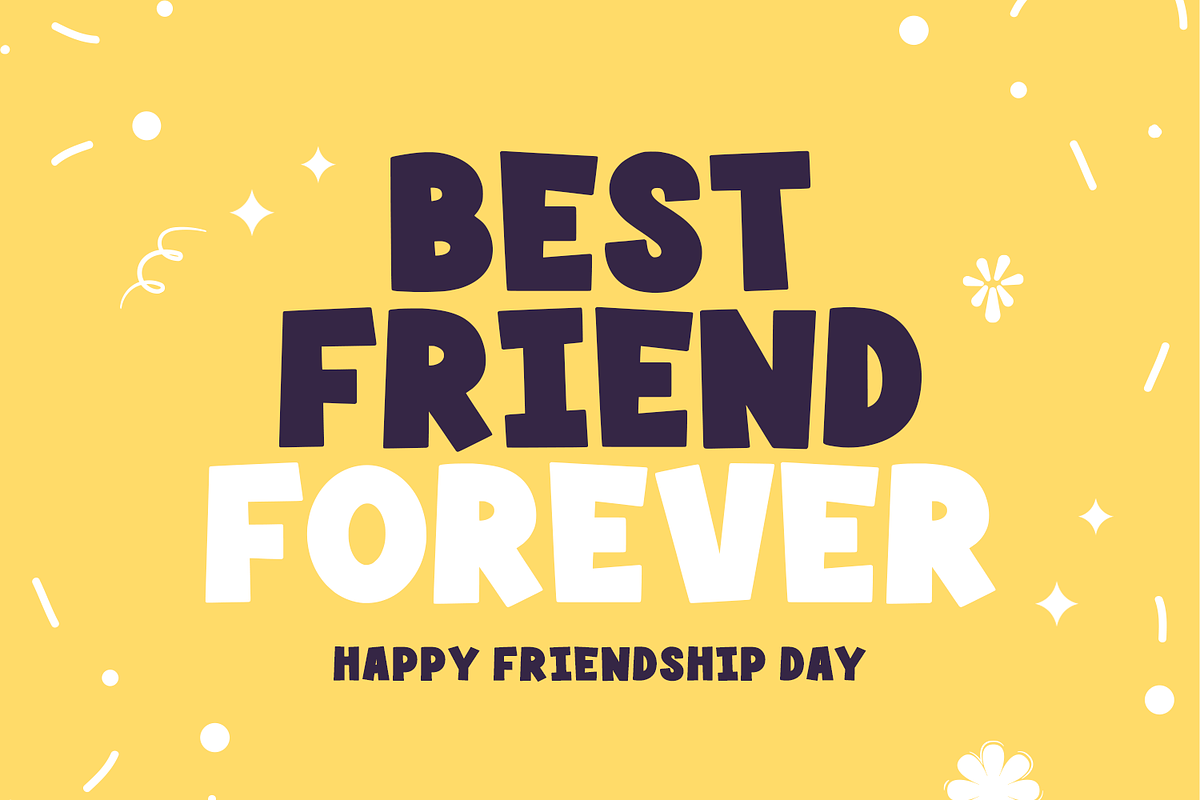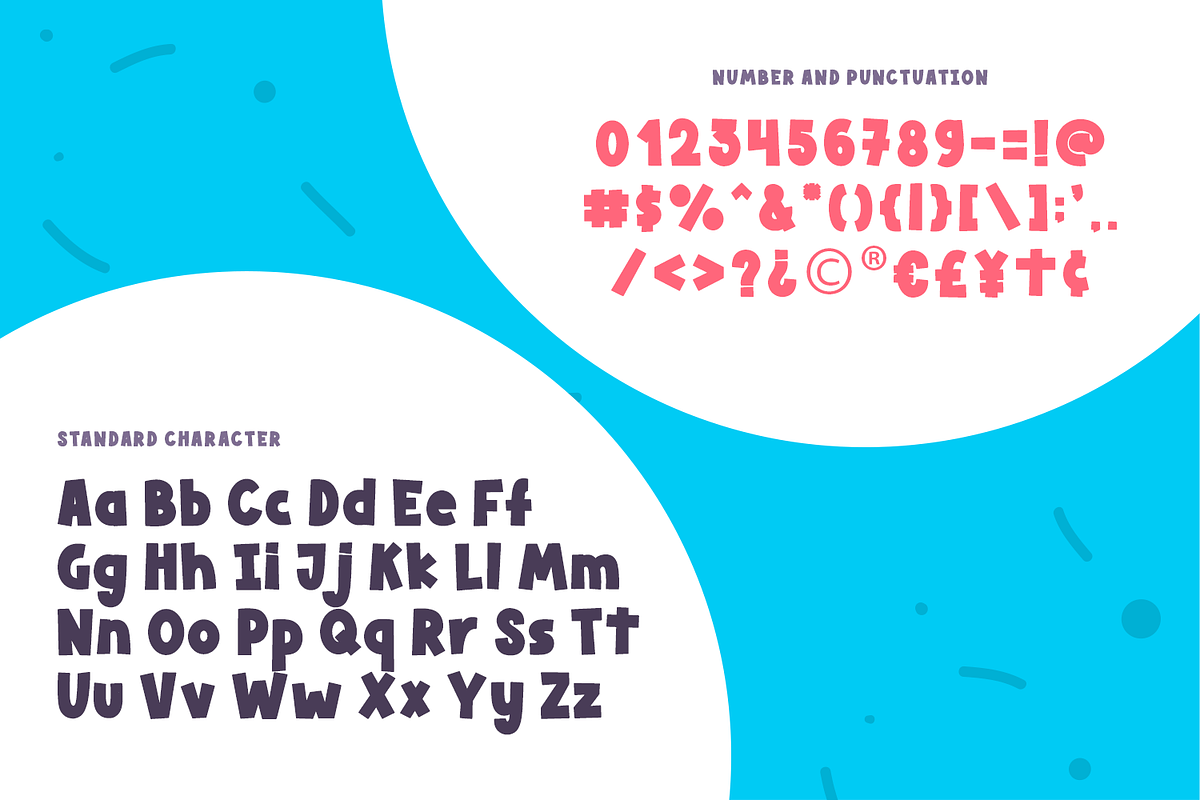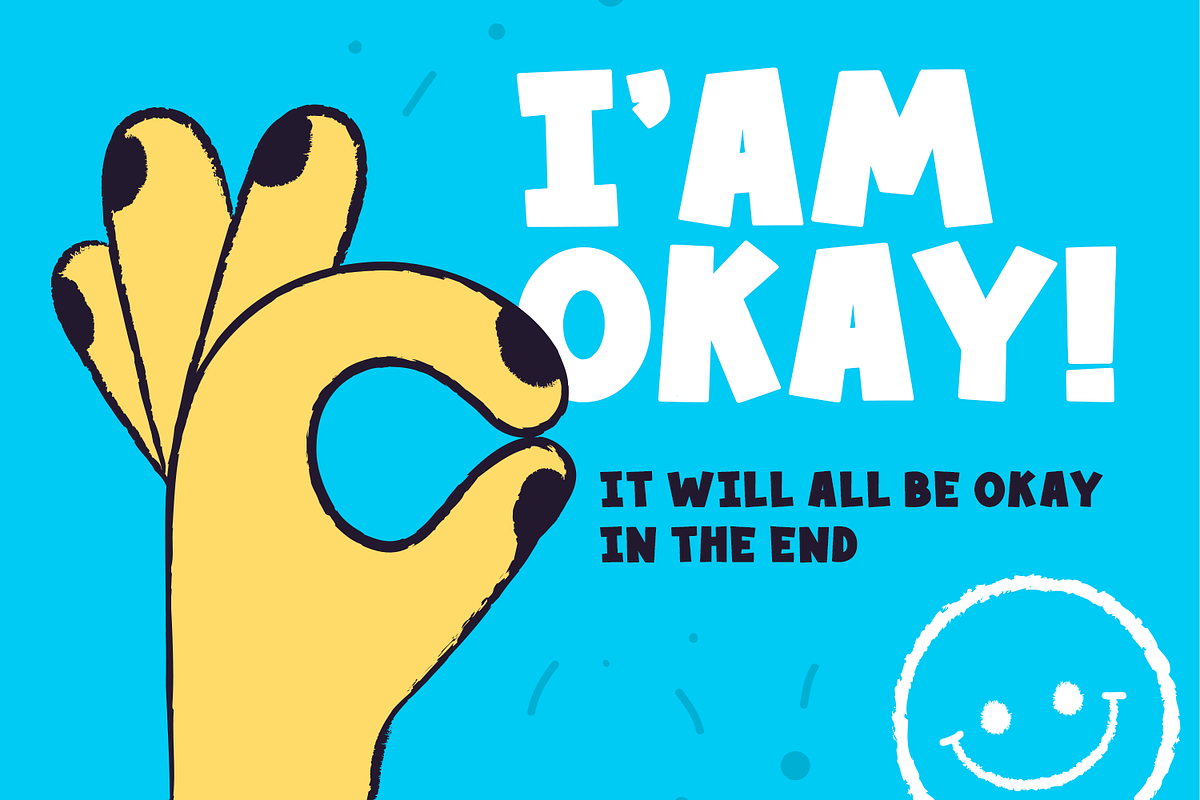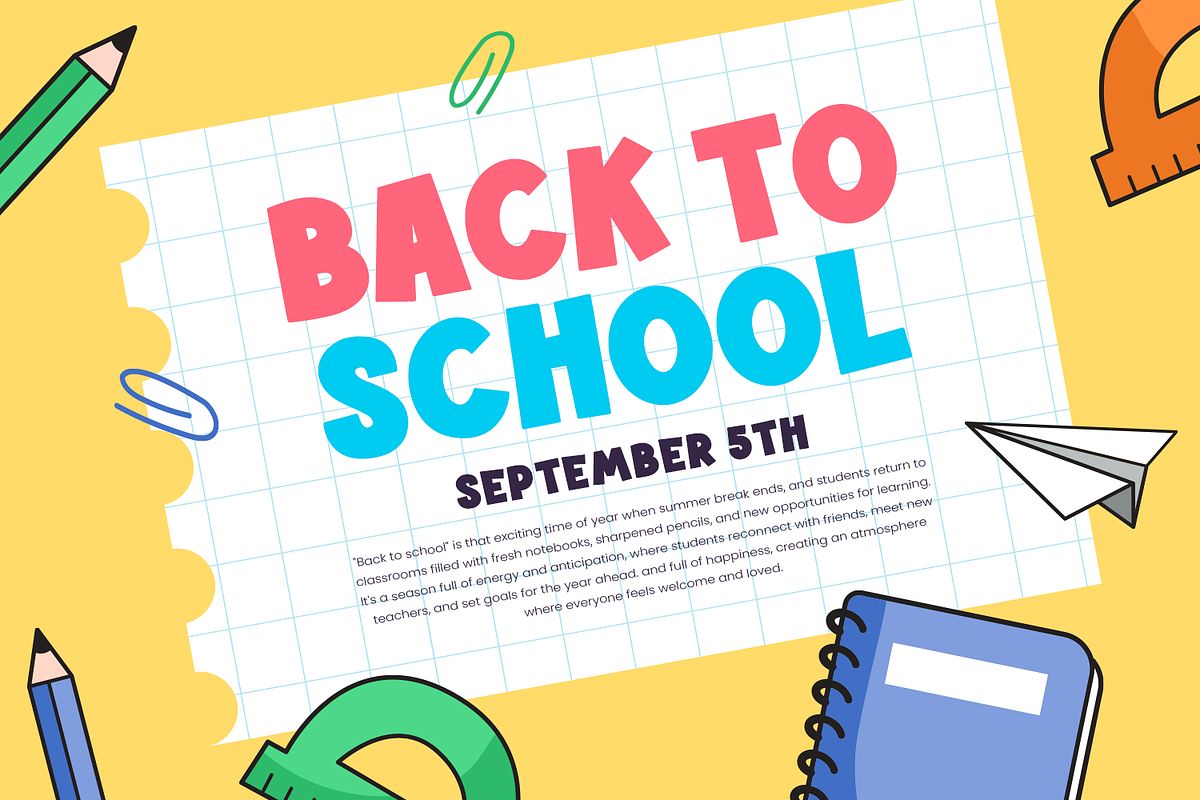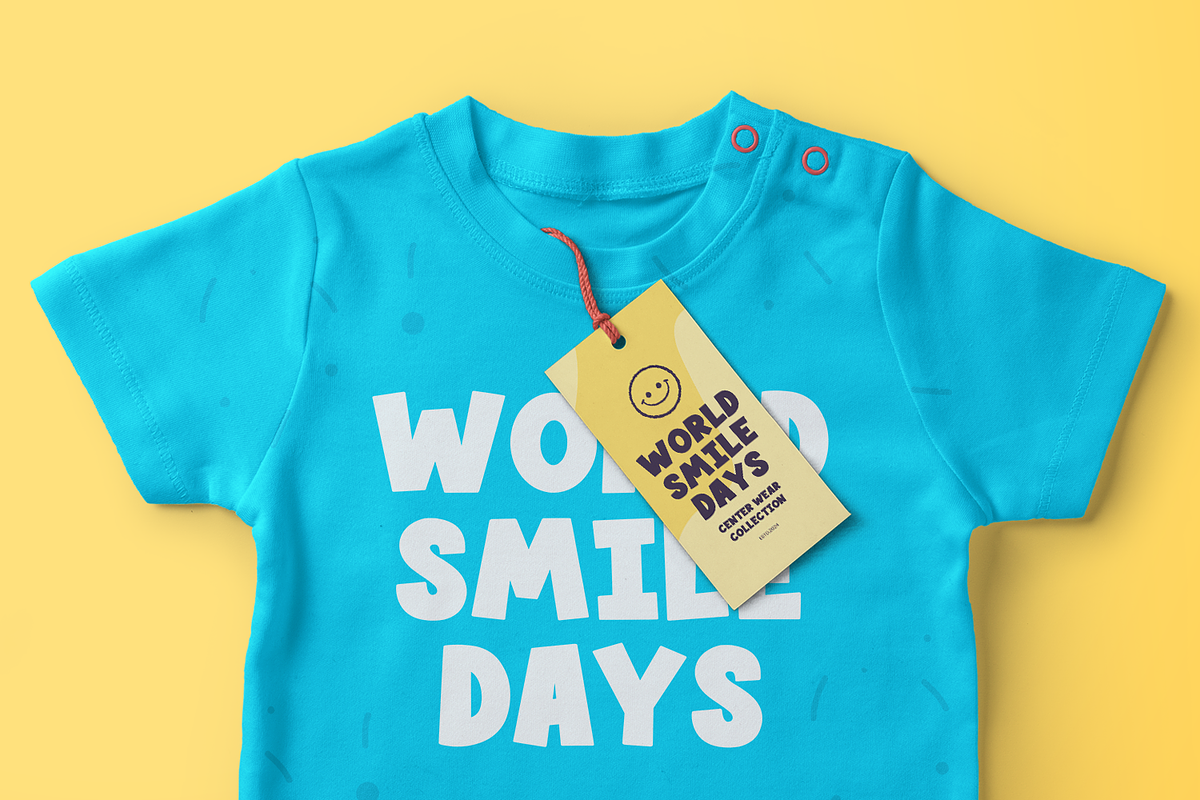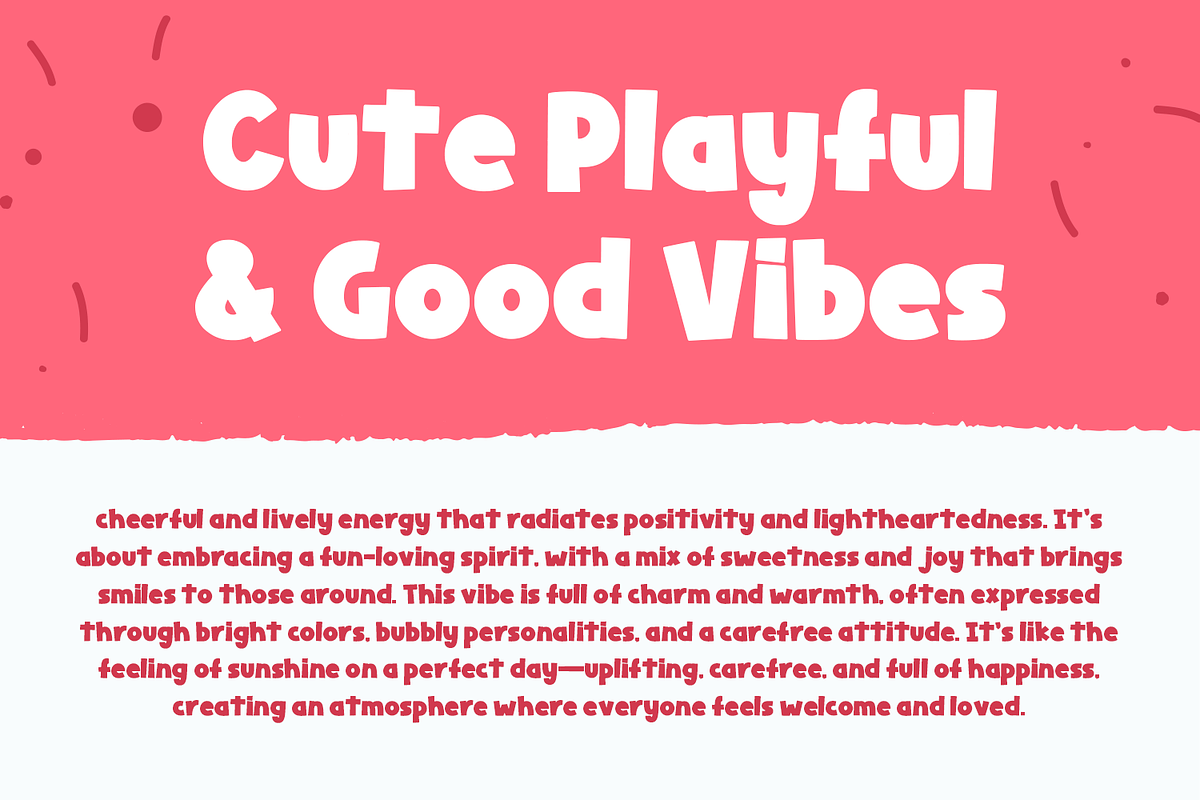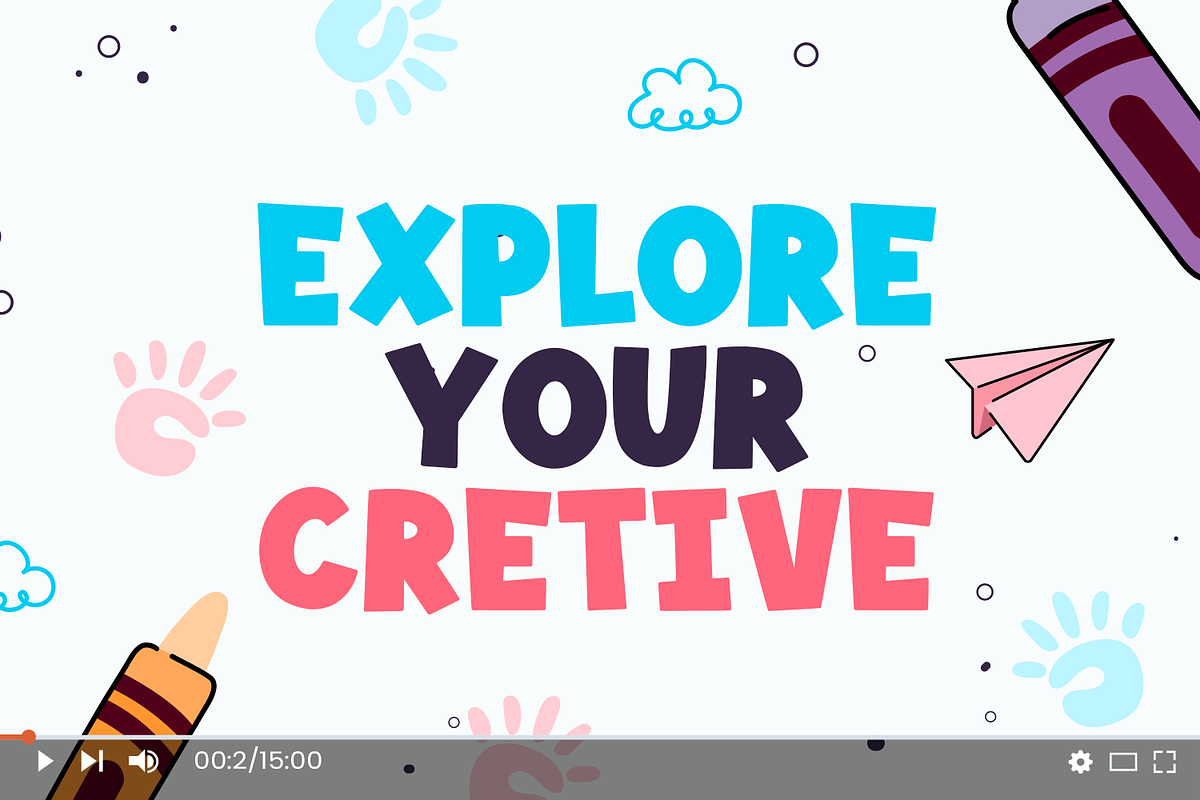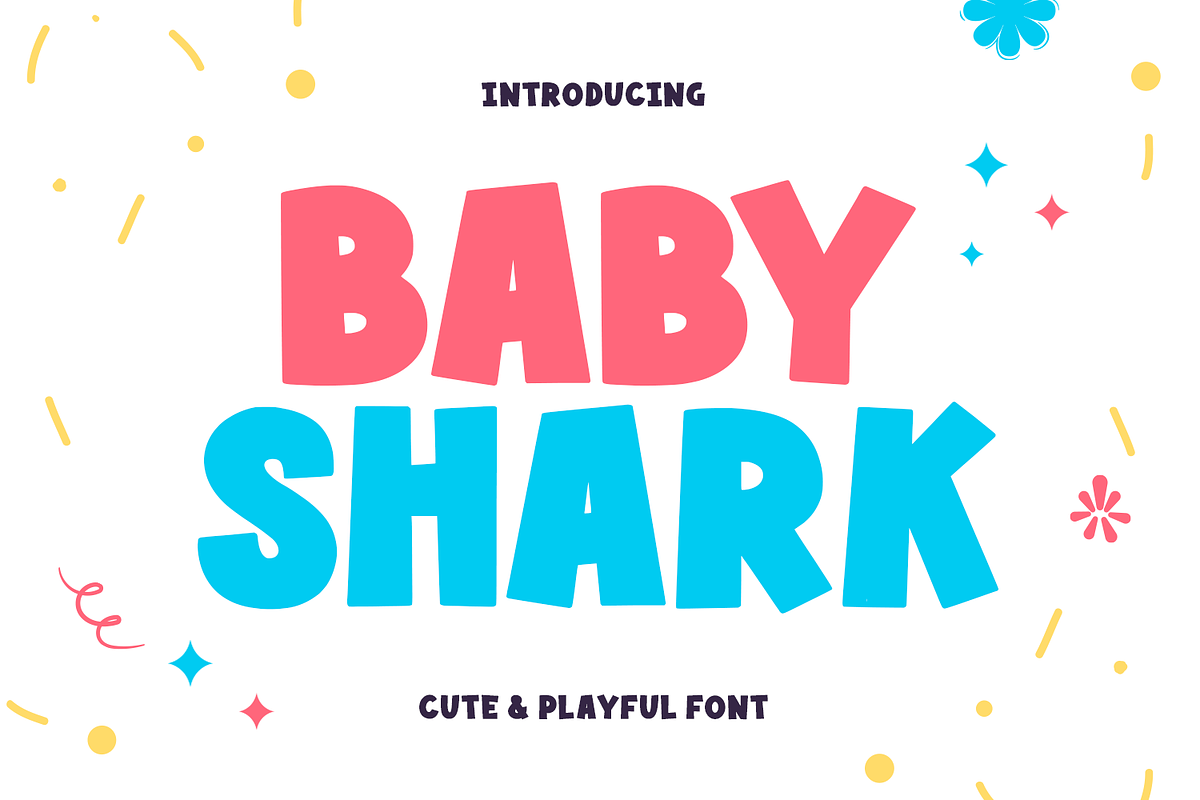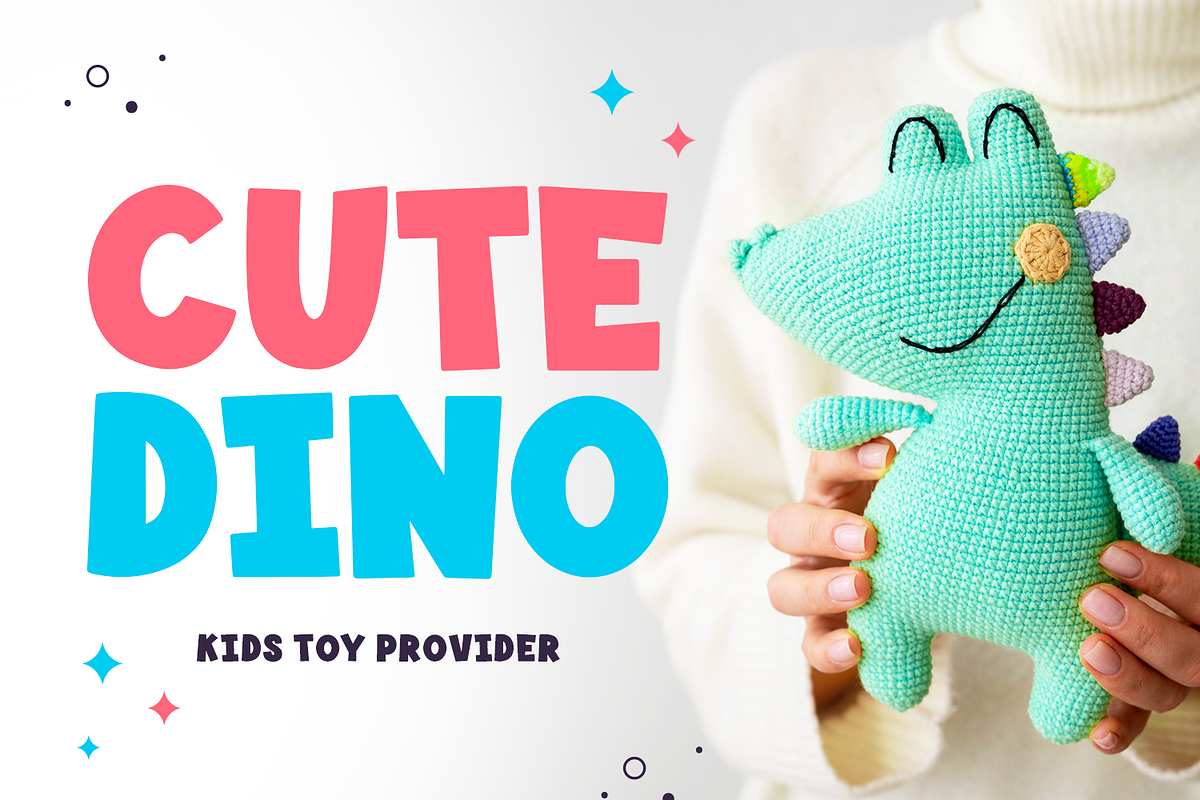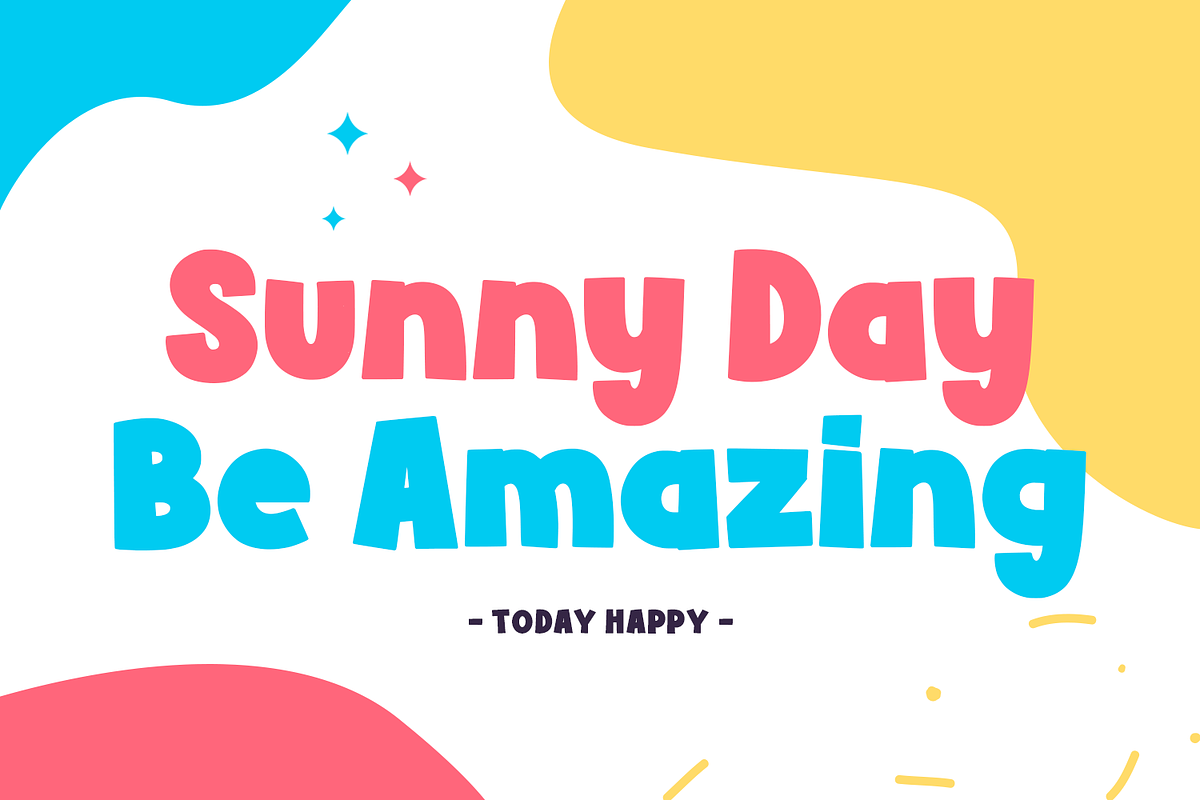
BABY SHARK
Baby Shark is a playful and delightful display font that embodies fun and creativity, perfect for children’s themes. This font’s charming, bold letters add a joyful touch, making it ideal for any design aimed at younger audiences. Its cheerful style is sure to bring smiles and engage kids with its lively, easy-to-read characters.
The Baby Shark font is versatile, designed to enhance a range of projects, from kids' storybooks and educational materials to playful posters and birthday invitations. Whether you're crafting school event flyers, stationery, or whimsical social media graphics, this font will infuse your work with energy and fun.
The rounded, chunky lettering of Baby Shark adds a touch of whimsy, making it great for game titles, toy packaging, and any design that calls for a friendly, approachable look. It’s also perfect for video content like YouTube covers, thumbnails, and fun animations aimed at children and families.
Bring the joy of Baby Shark into your projects and watch them come to life with excitement and playfulness. Make your next creation unforgettable—dive into the world of Baby Shark and capture hearts with its cute, captivating style!